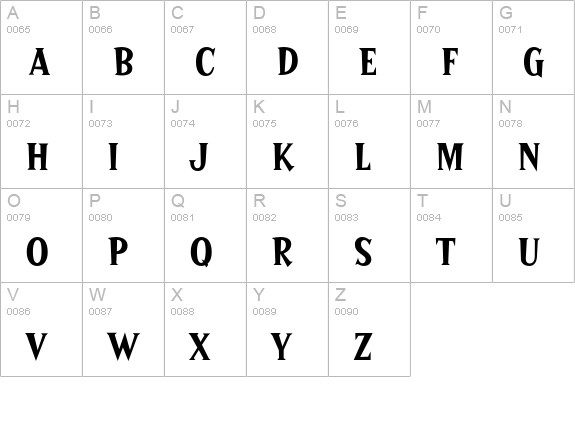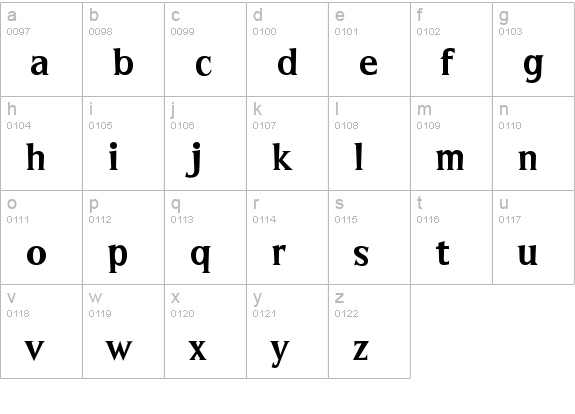
Sprocket Font Details
Sprocket font is a visually striking, modern typeface that is sure to make your designs stand out. With its unique and intricate letterforms, Sprocket adds a touch of elegance to any project. Whether you're creating a logo, designing a website, or crafting a poster, Sprocket font is the perfect choice to add a touch of sophistication. This font boasts a wide range of weights and styles, allowing for endless creative possibilities. From bold and impactful to delicate and refined, Sprocket offers versatility that is sure to meet all your design needs. The clean lines and balanced proportions of this font ensure legibility, making it suitable for both headlines and body text. One of the best features of Sprocket font is that it is free. Yes, you read that right - this stunning typeface is freely available to download at FontsMarket.com. With just a few clicks, you can bring this exceptional font into your design arsenal, without spending a dime. So why wait? Experience the beauty and functionality of Sprocket font today. Download it for free at FontsMarket.com and explore the endless possibilities it has to offer. Whether you're a professional designer or a creative enthusiast, Sprocket font is a must-have addition to your font collection. Don't miss out on this fantastic opportunity to elevate your designs with a font that is both visually captivating and freely accessible.